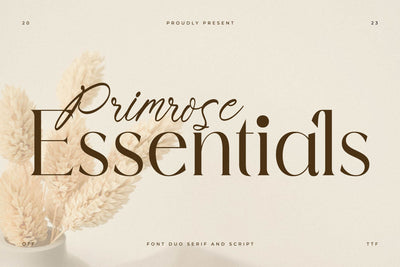
Primrose Essentials Font Duo
Proudly present Primrose Essentials Font Duo , created by Storytype,
A serif and script typeface that has own unique style & modern look.